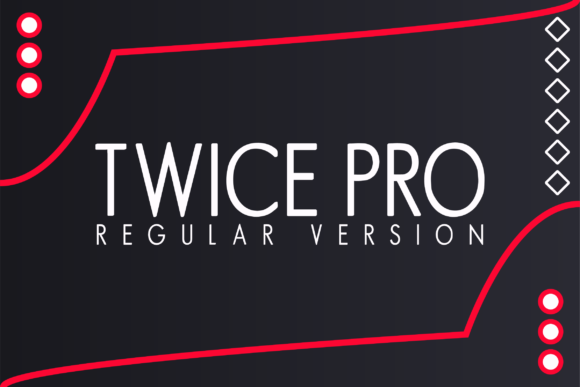
Unleash the power of Twice Pro Font, a captivating sans serif typeface that exudes elegance and sophistication. Dive into a world of visual allure, where your designs come alive with a touch of grace and refinement.
Crafted with precision by the talented designers at Huntype, Twice Pro Font boasts a seamless blend of sharp lines and gentle curves, creating a timeless aesthetic that transcends trends. Its smooth geometric style adds a touch of modernity while maintaining a classic charm, making it the perfect choice for a wide range of design projects.
Let your imagination soar as you explore the endless possibilities of Twice Pro Font. Its versatility shines through whether you're crafting logos that demand attention or weaving words into enchanting invitations. The font's clean lines and crisp edges ensure readability even at small sizes, making it a favorite for websites, brochures, and presentations.
Indulge in the allure of Twice Pro Font, a font that captivates and enchants. Its elegant appearance adds a touch of luxury to any project, leaving a lasting impression on your audience. Elevate your designs to new heights and create masterpieces that speak volumes with every stroke.
Make Twice Pro Font your go-to choice for crafting designs that leave an unforgettable mark. Its charm and sophistication will transform your creative visions into stunning realities. Embrace the beauty of Twice Pro Font and embark on a design journey like no other!